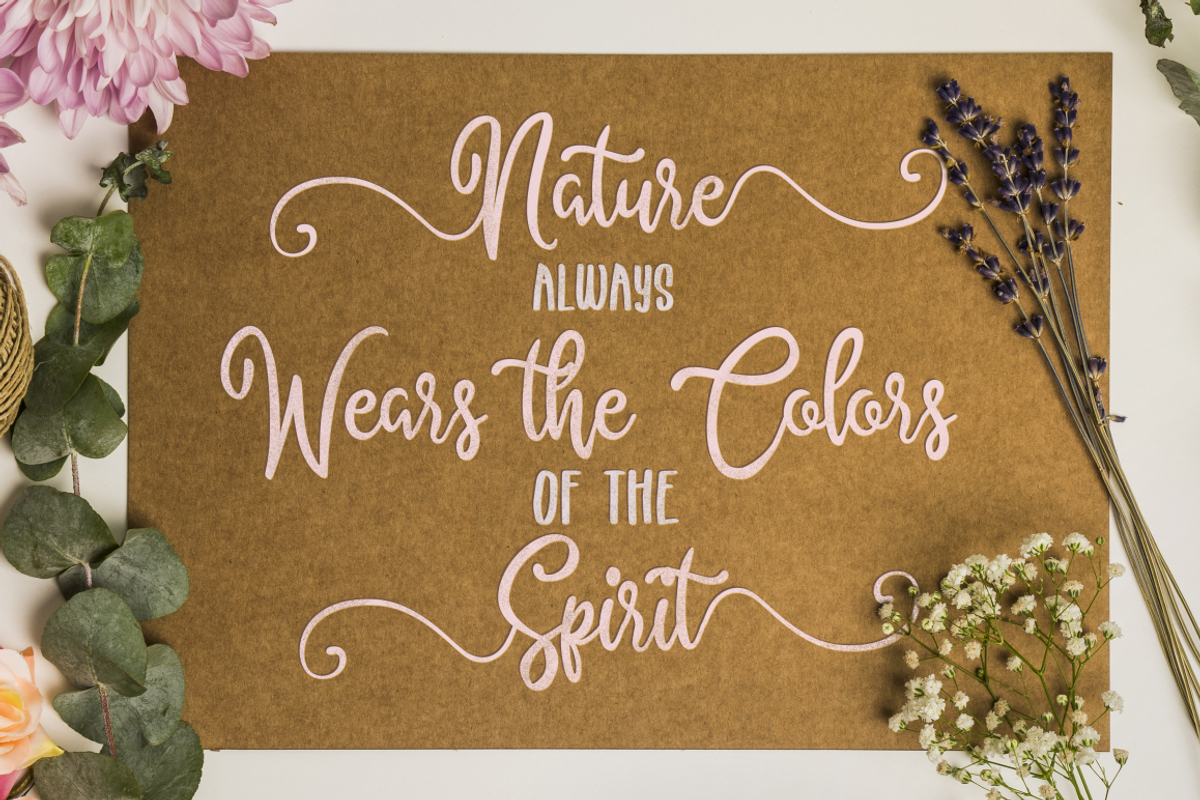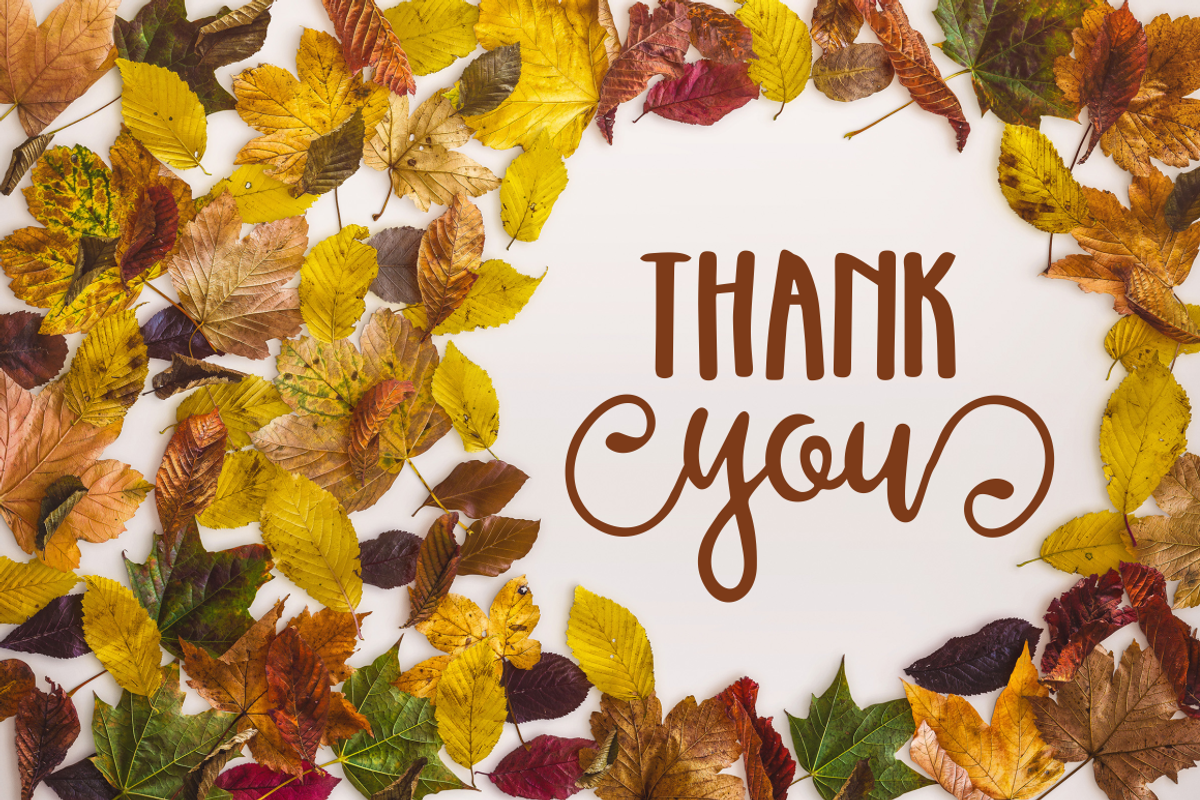
Alyssum Blossom
Introducing Alyssum Blossom , a beautiful dinamic duo typeface.. This combination consist of Handwritten Script as the main hero and Handwritten Sans as the sidekick. Perfectly match for your project needs.